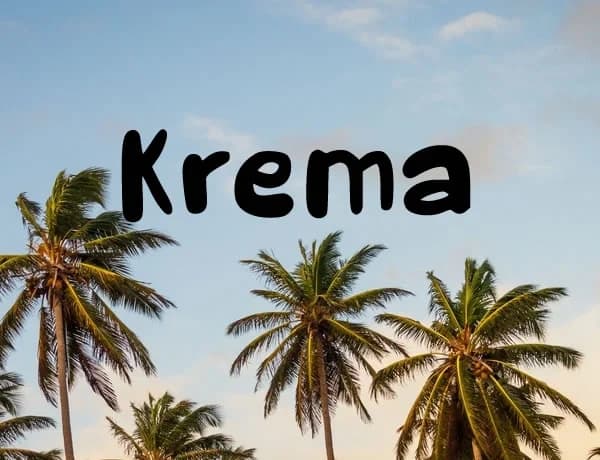
About Krema Font
Krema Font by Carolina Valtuille is a graceful handwritten script typeface that brings authentic personality and warmth to any creative project. The flowing letterforms capture the intimate quality of pen-on-paper handwriting while maintaining excellent clarity across different sizes, making it an accessible choice for designers who want natural character without sacrificing legibility or professional polish.
This handwritten script excels in design contexts where genuine, personal aesthetics make the strongest impression. It's particularly well-suited for wedding invitation suites, where its flowing elegance enhances formal announcements with understated sophistication, as well as traditional greeting card designs and custom product labels for artisanal or small-batch brands. Social media graphics for boutique fashion, beauty, and wellness businesses benefit significantly from its personable, human-centered character, while DIY vinyl decal projects and personalized apparel designs showcase the typeface's smooth, clean letter connections that cut precisely through digital and physical media.
Krema Font is a script font that shines as a display or heading face. Pair it with a clean sans-serif or serif font for body text β the contrast creates a clear hierarchy while the two styles stay balanced and easy to read.